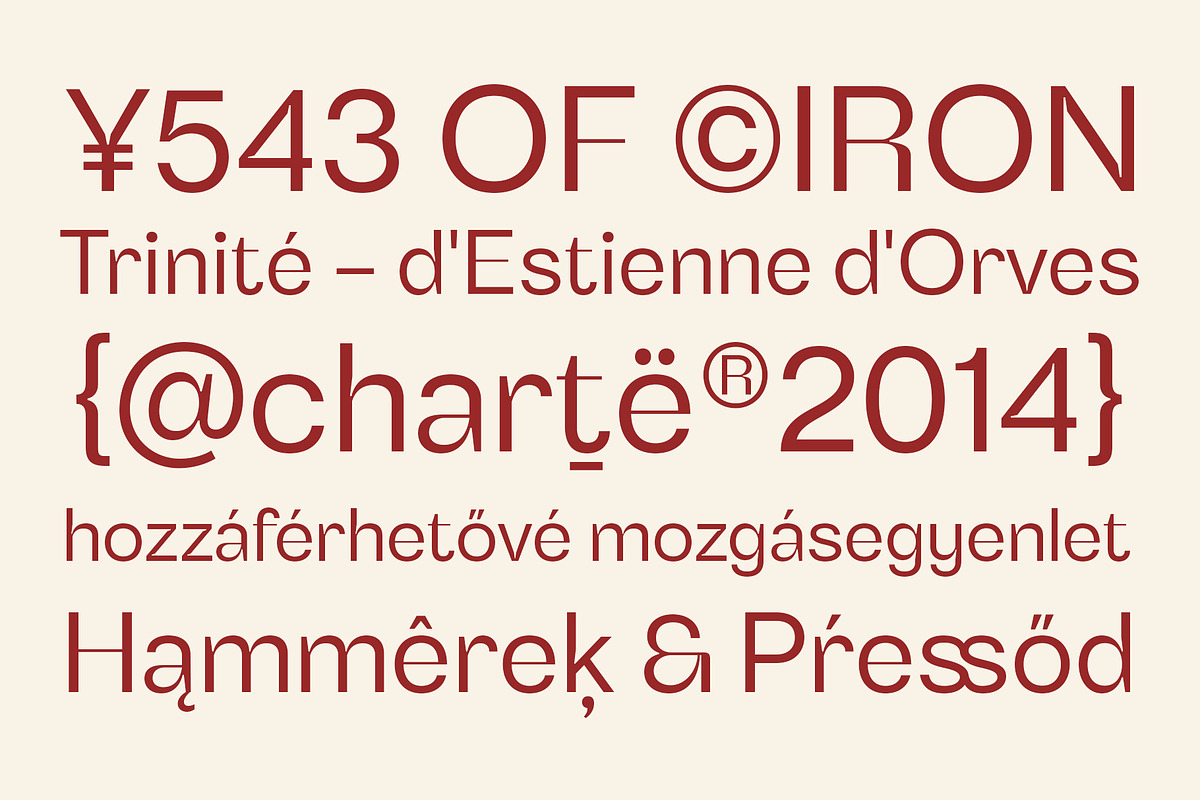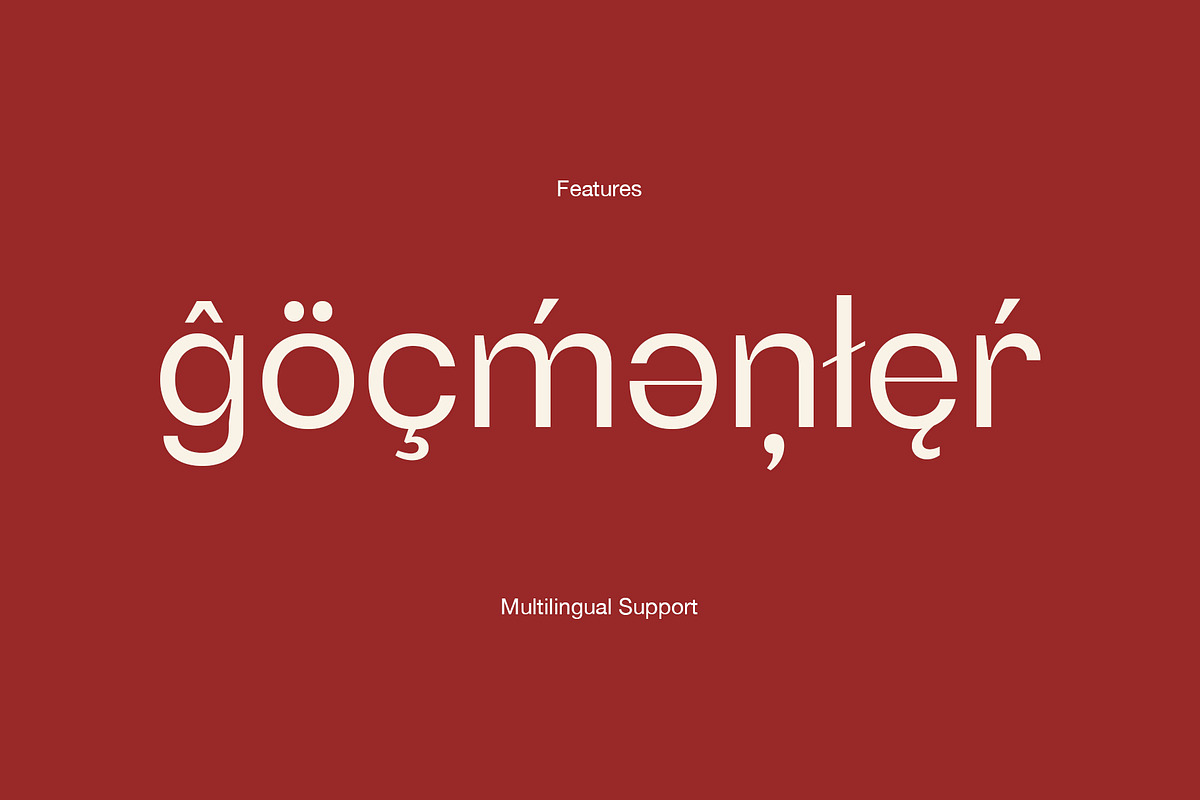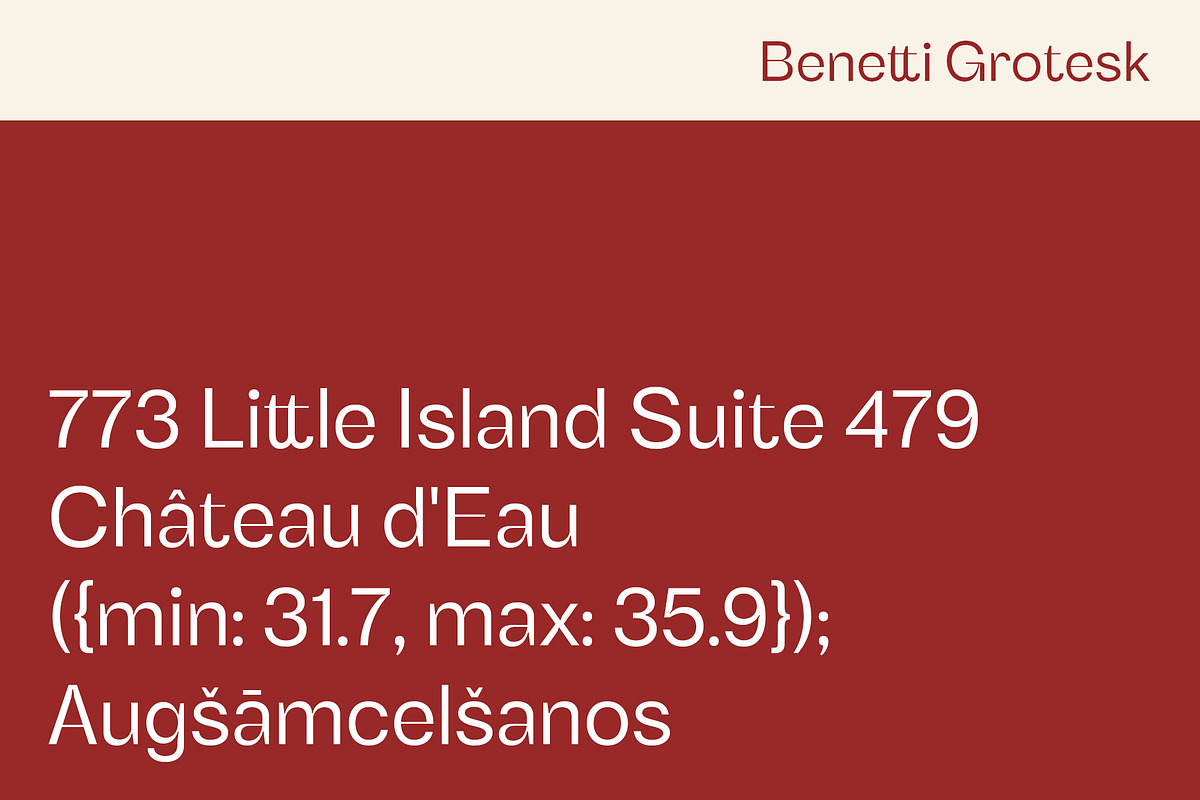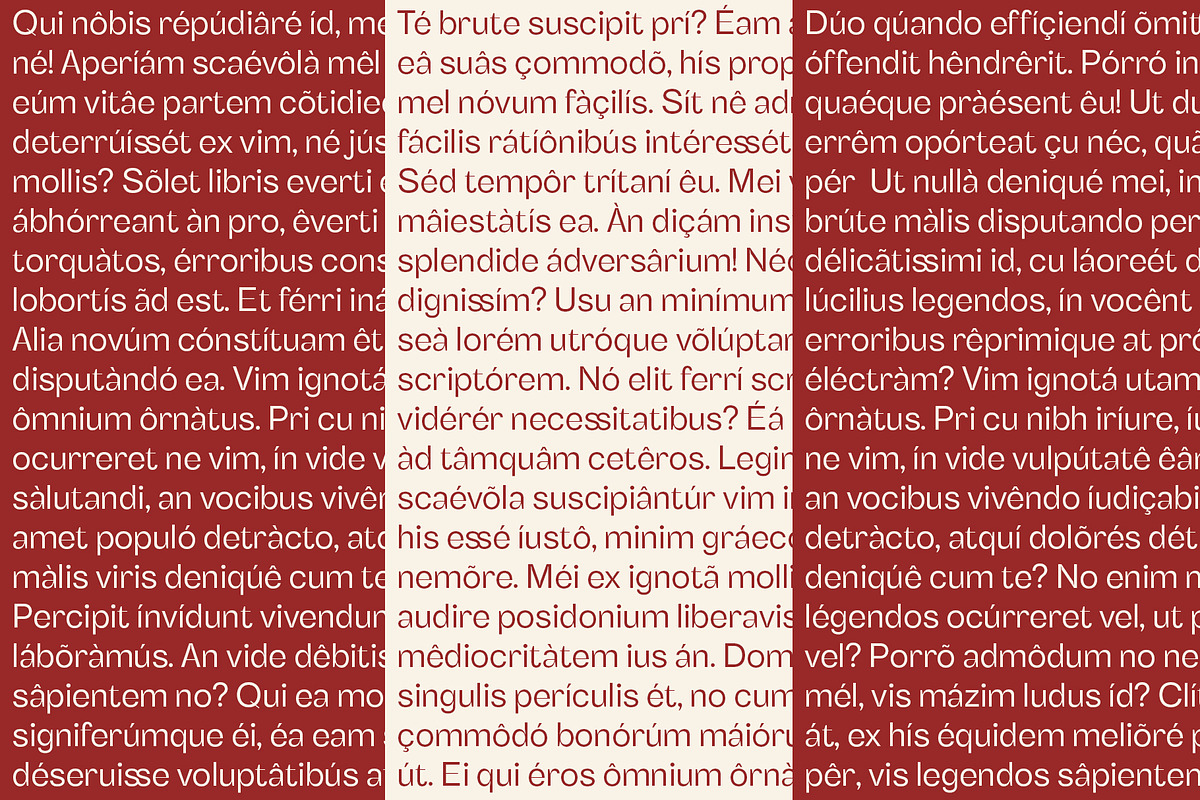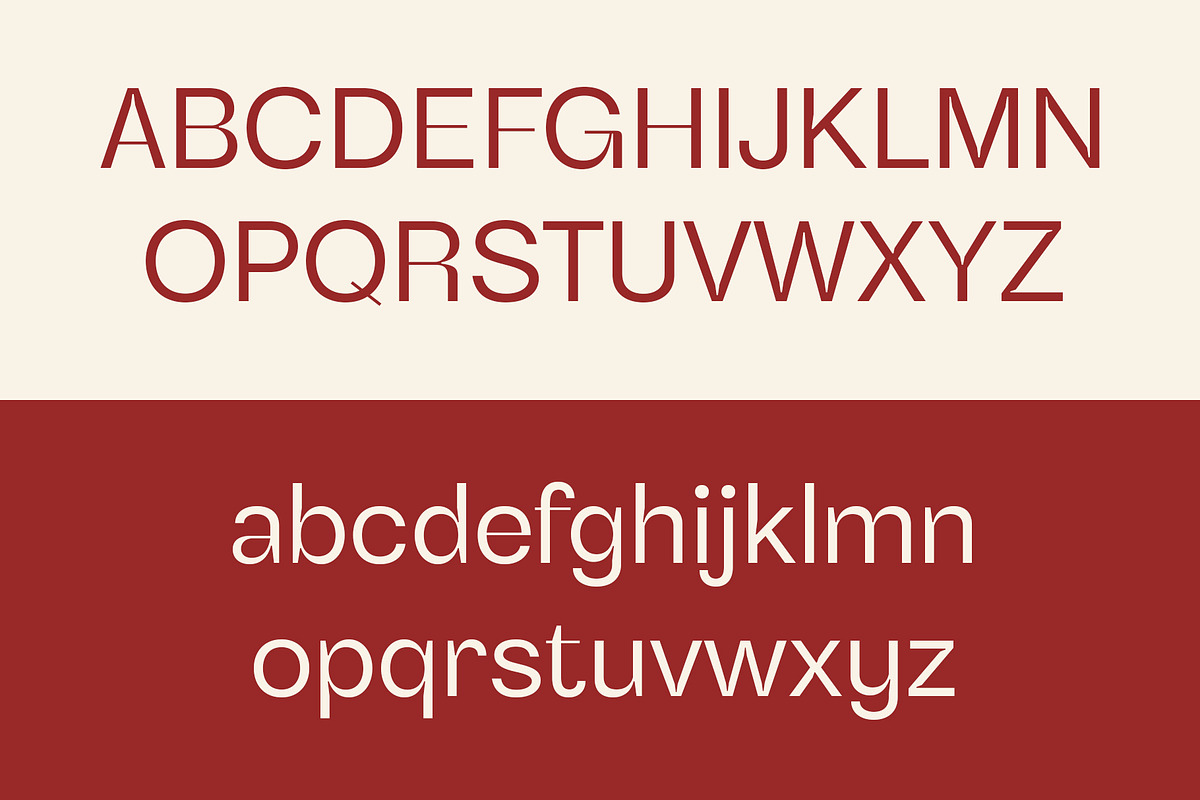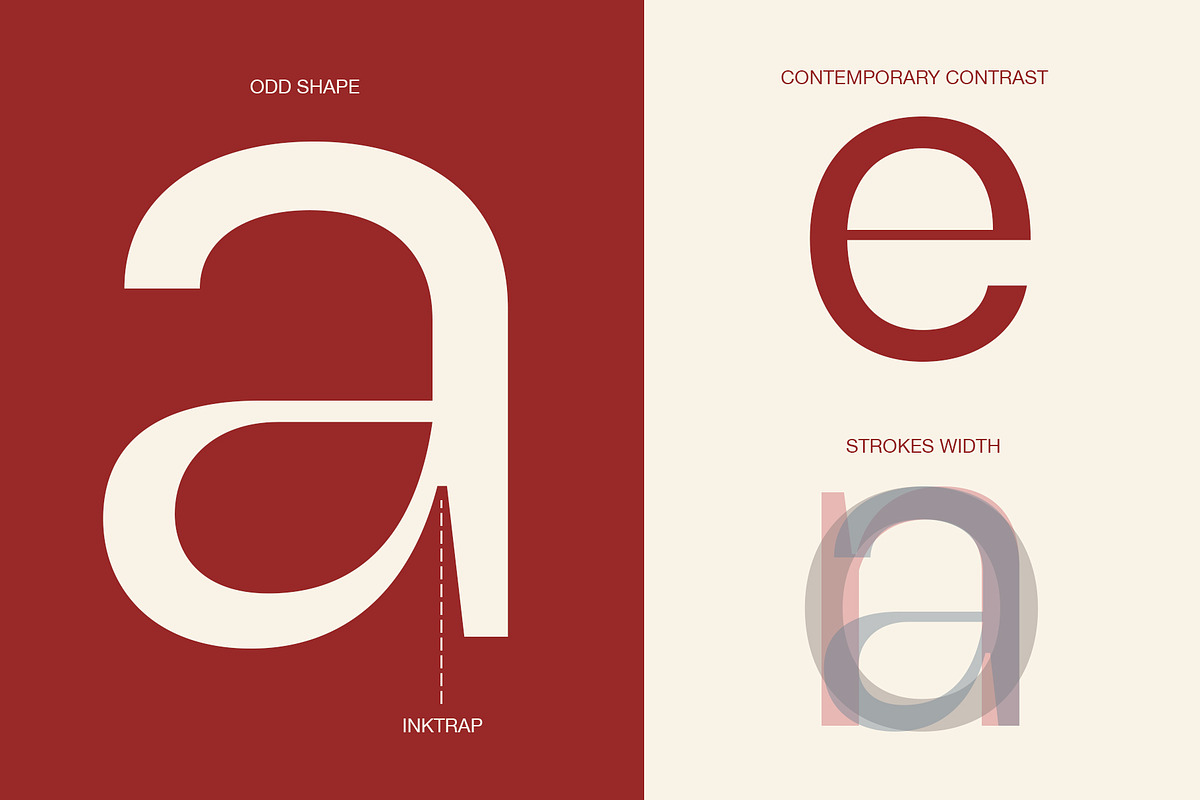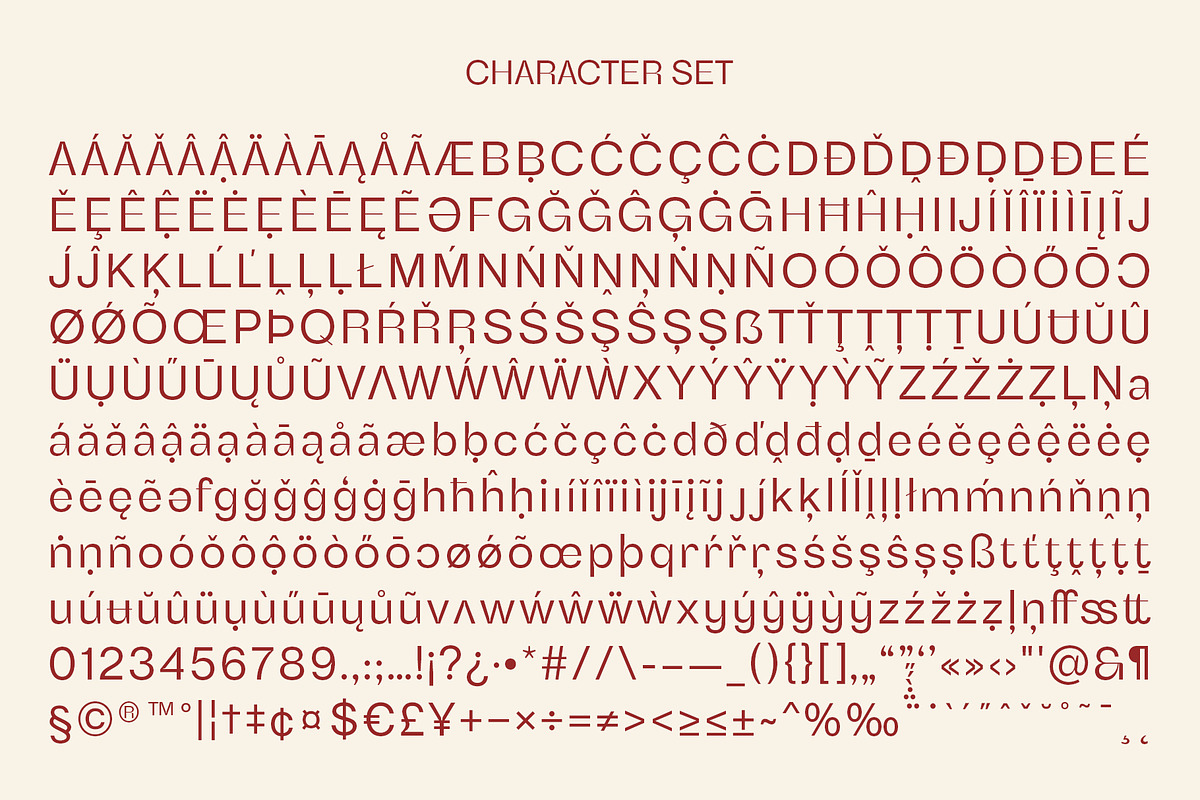
Benetti Grotesk
Introducing Benetti Grotesk
Benetti Grotesk is a modern sans serif inspired by grotesque typeface construction with few contemporary sense in the details that make it look more attractive for a display typeface. It can be used to create almost all types of design projects like print materials. Just use your imagination and your project will become more alive and look great than ever with this typeface.